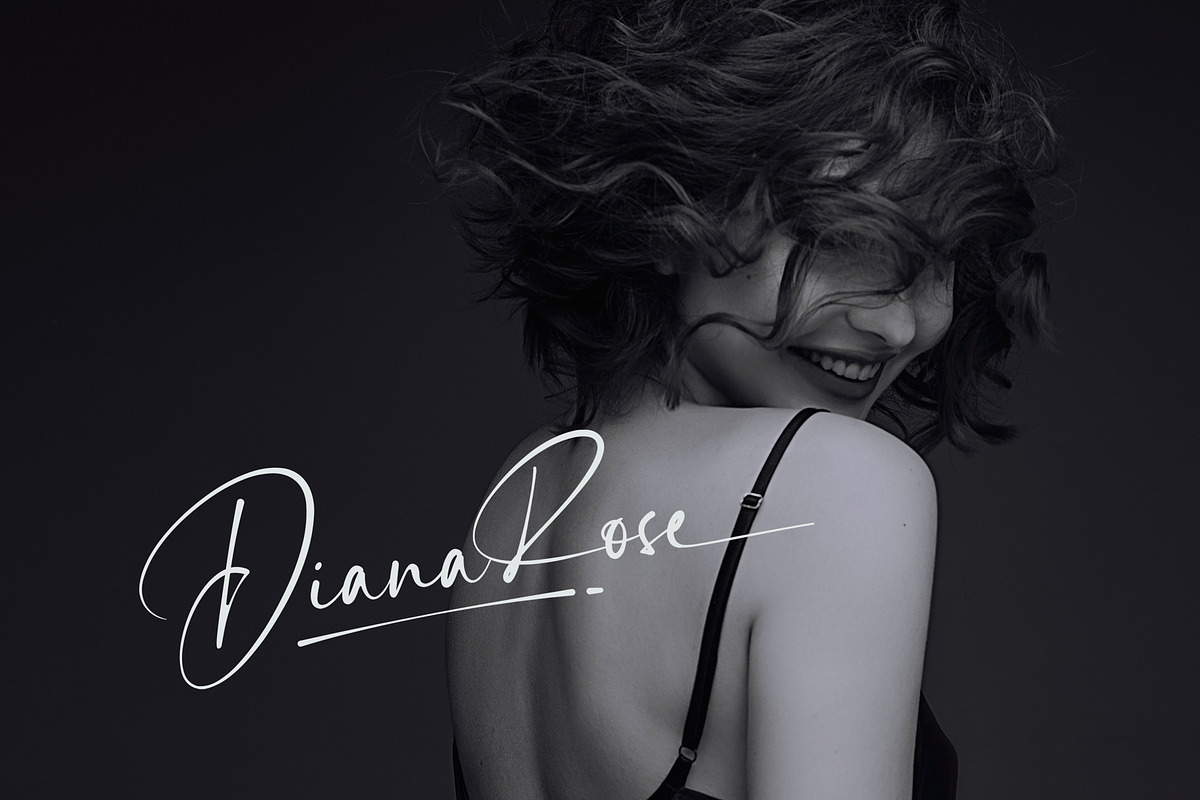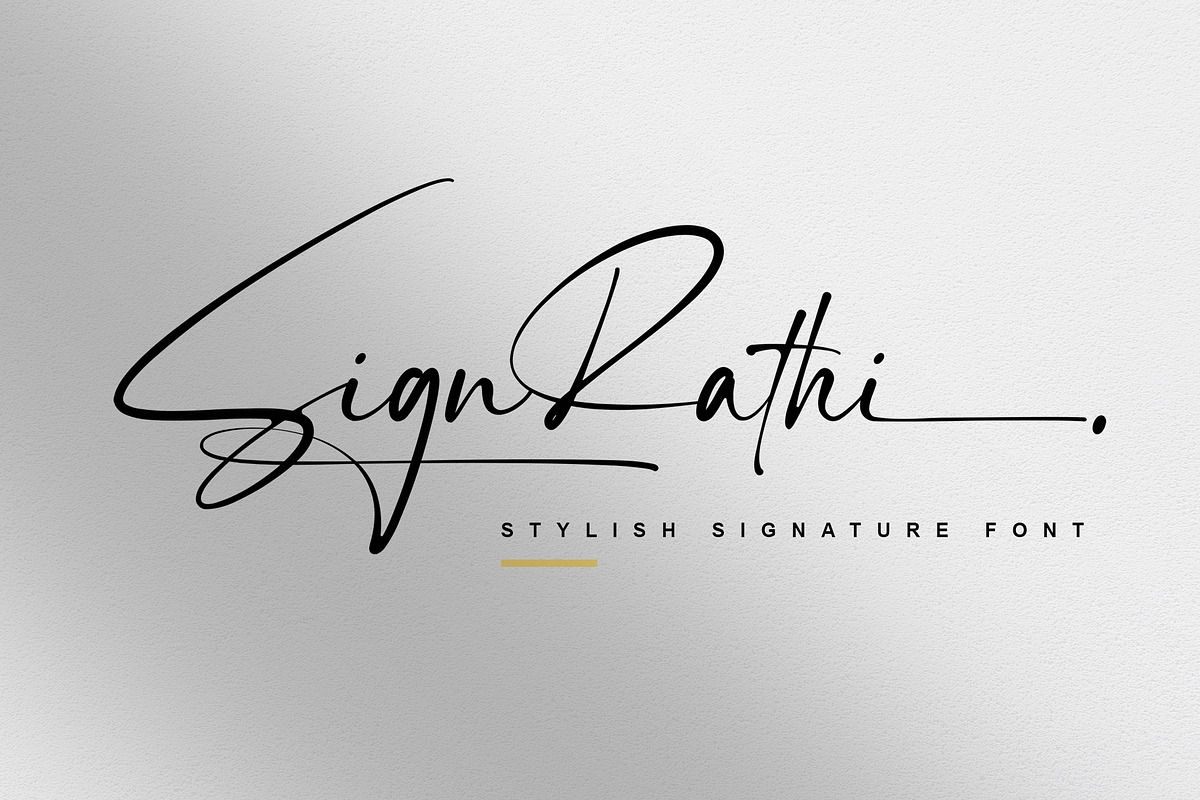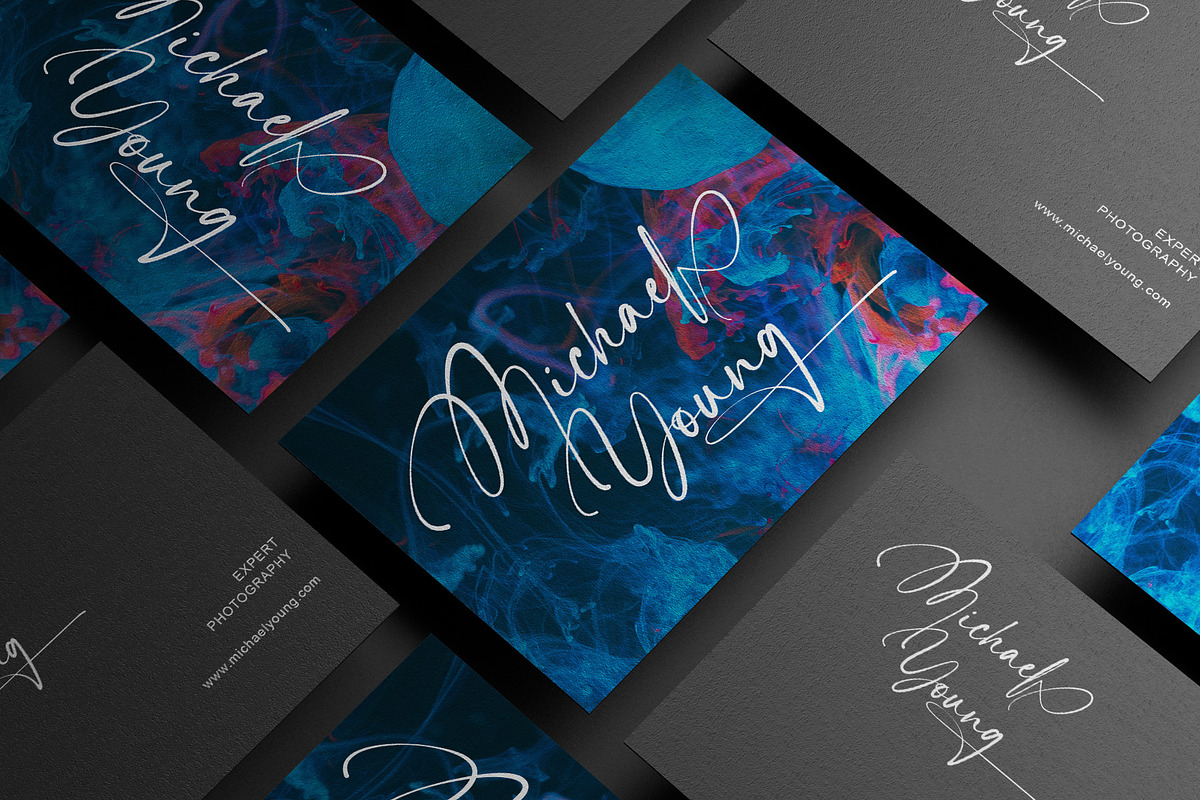
Sign Rathi | Signature Script
SignRathi is a perfect signature font, with a natural & stylish flow. SignRathi Font is perfect for many different project such as logos & branding, invitation, stationery, wedding designs, social media posts, advertisements, product packaging, product designs, label, photography, watermark, special events or anything.
- Stylistic Set
Stylistic Set:
- Add underscore + number (1-5) after lowercase a-z
- Example: _1, _2, _3, _4, _5
Swash:
- Add number (1–5) + underscore + number (1–5)
- Example: 1_1, 2_2, 3_3, 4_4, 5_5